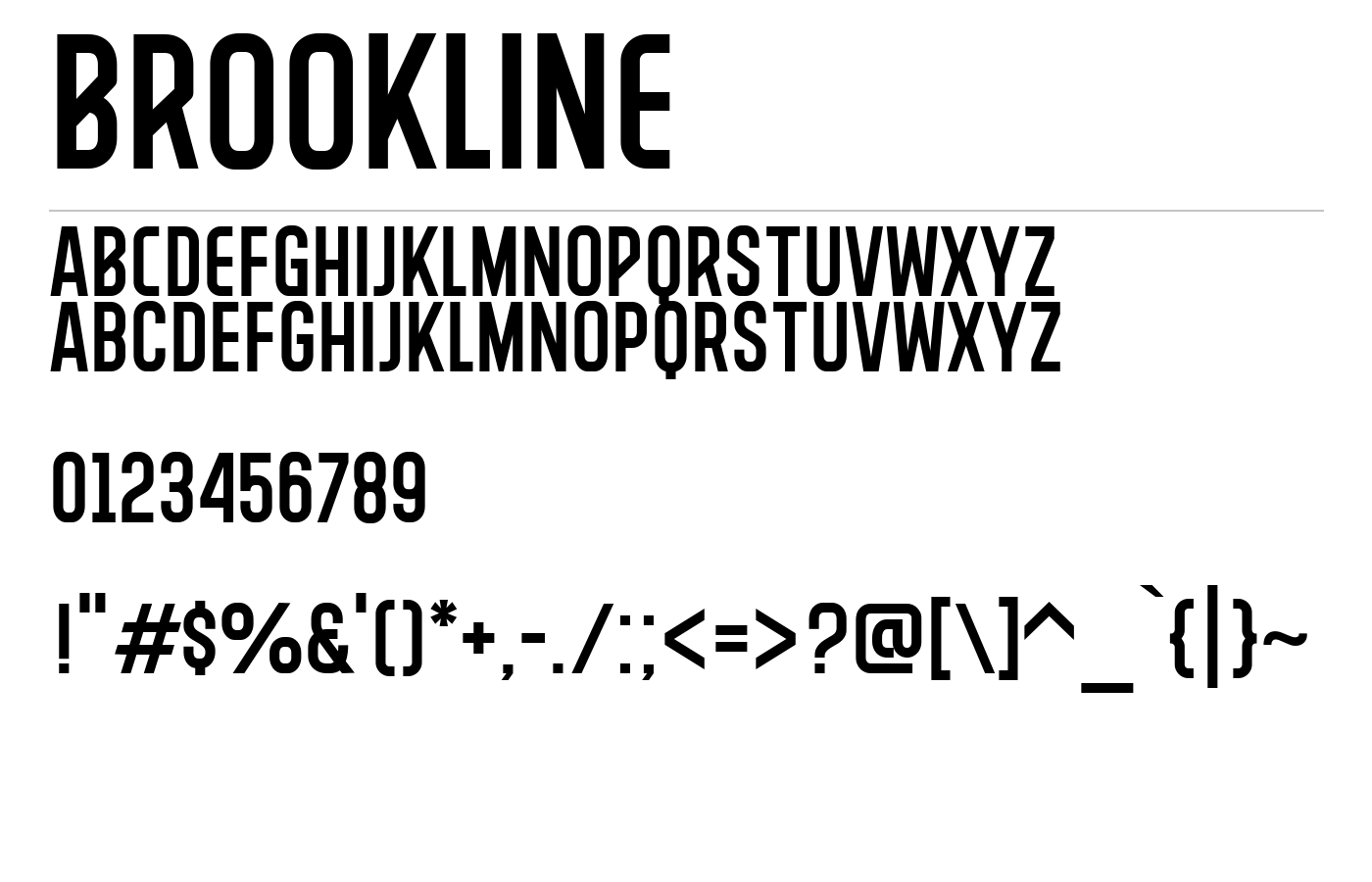
BROOKLINE is a tall, condensed sans-serif font with a bold, modern look. Its clean lines and uniform stroke weight give it a strong, confident personality, making it ideal for impactful headlines, branding, and editorial use where clarity and style are essential. This font works well for contemporary designs that require a sleek, urban vibe.
BROOKLINE Font
About BROOKLINE Font
| Font family | BROOKLINE Font |
| Designer | Hendra Pratama |
| Font subfamily | Condensed |